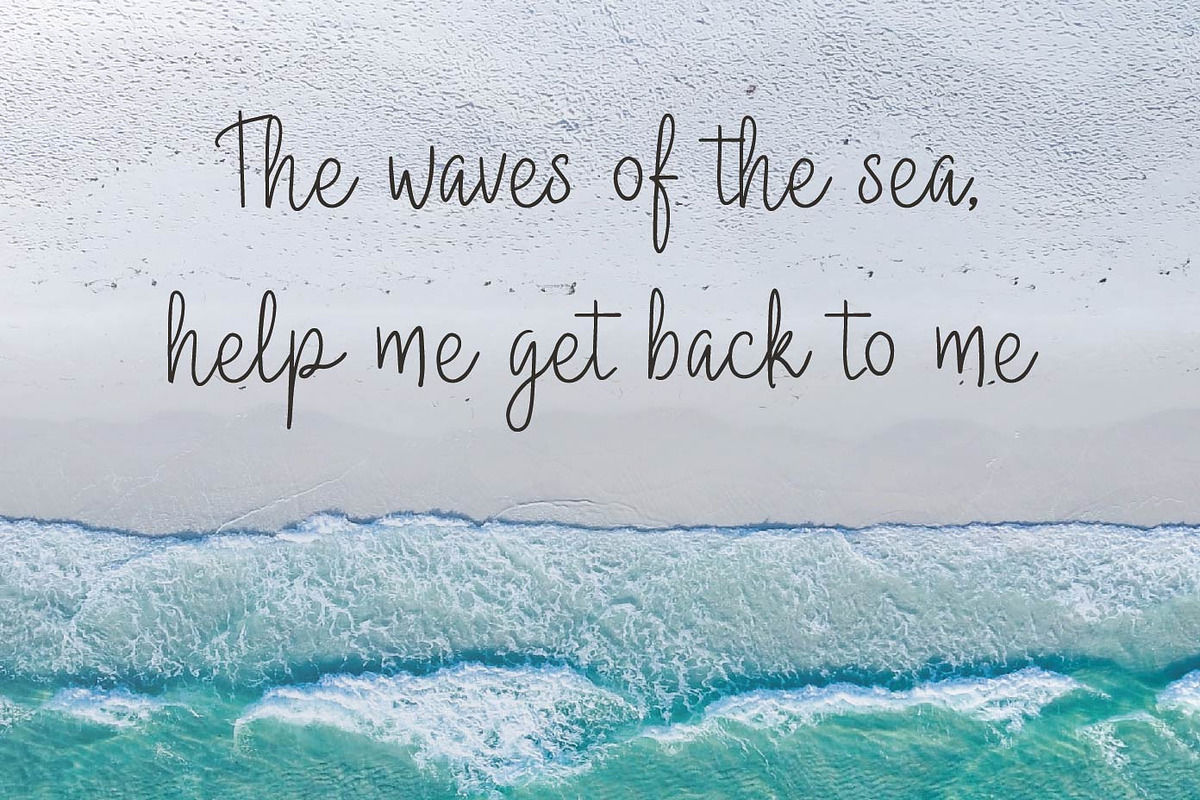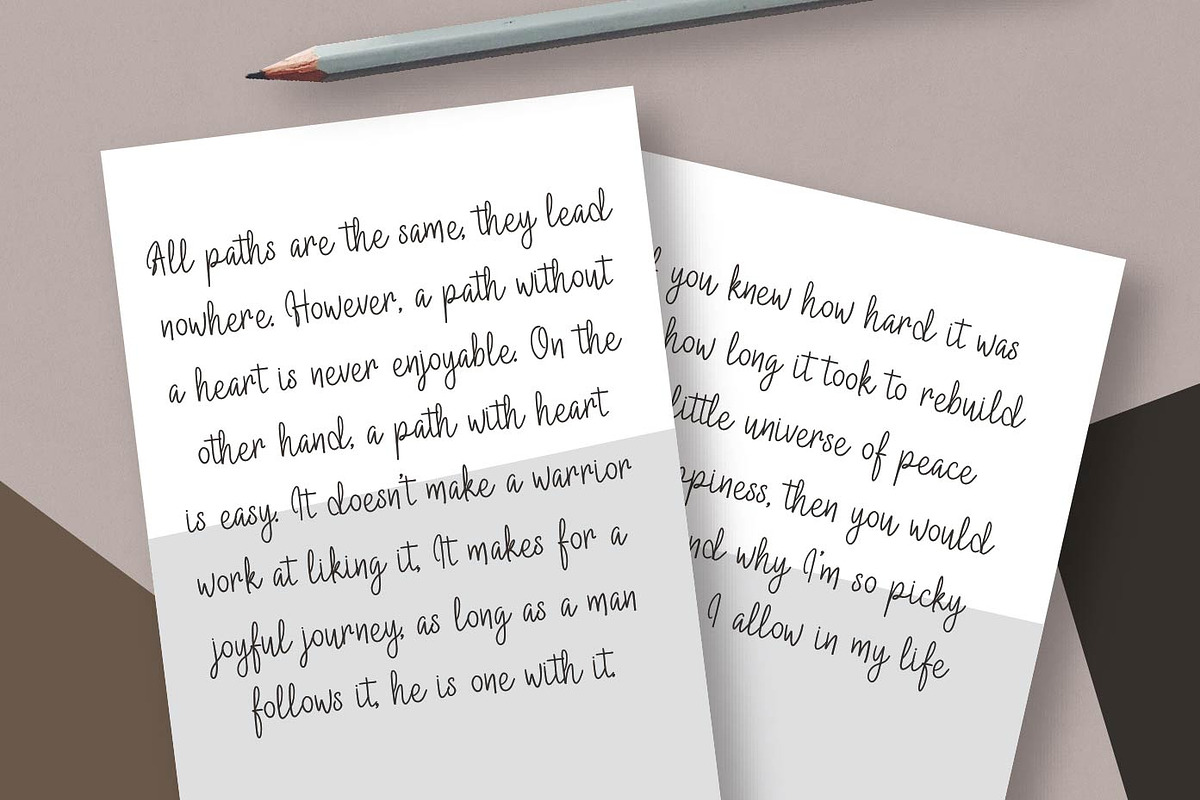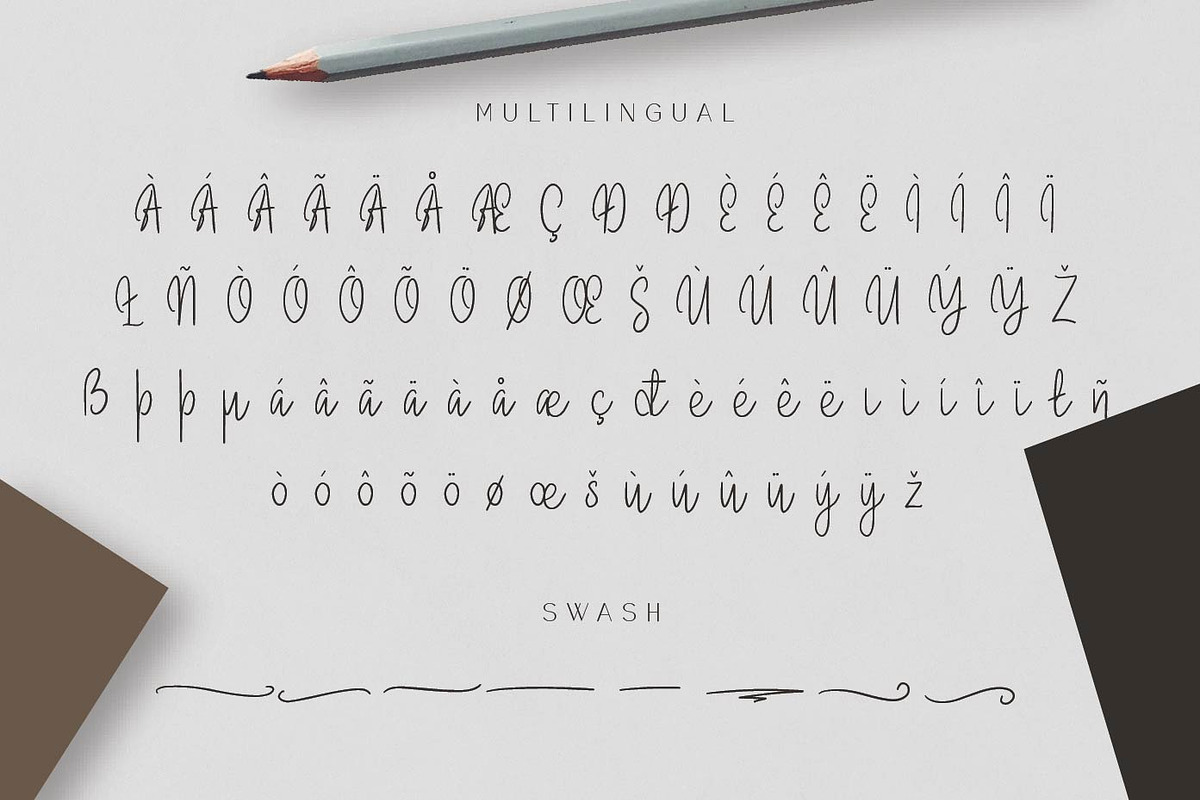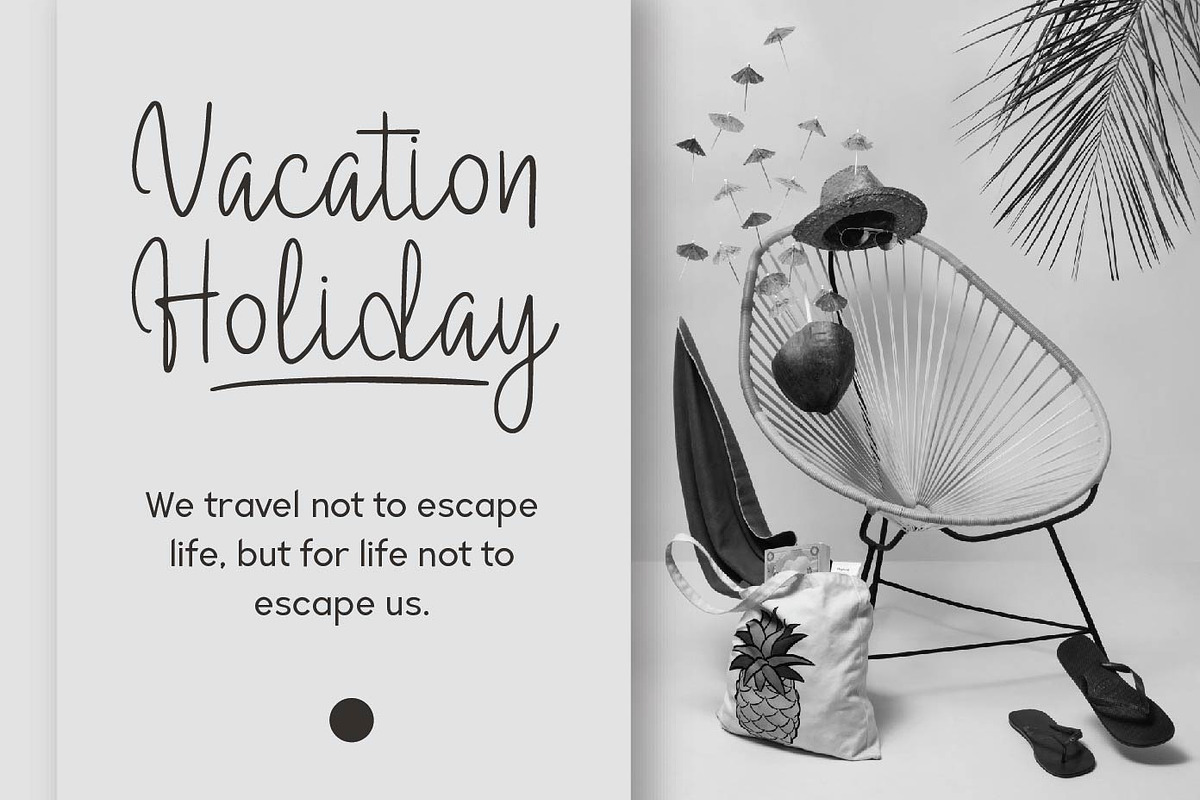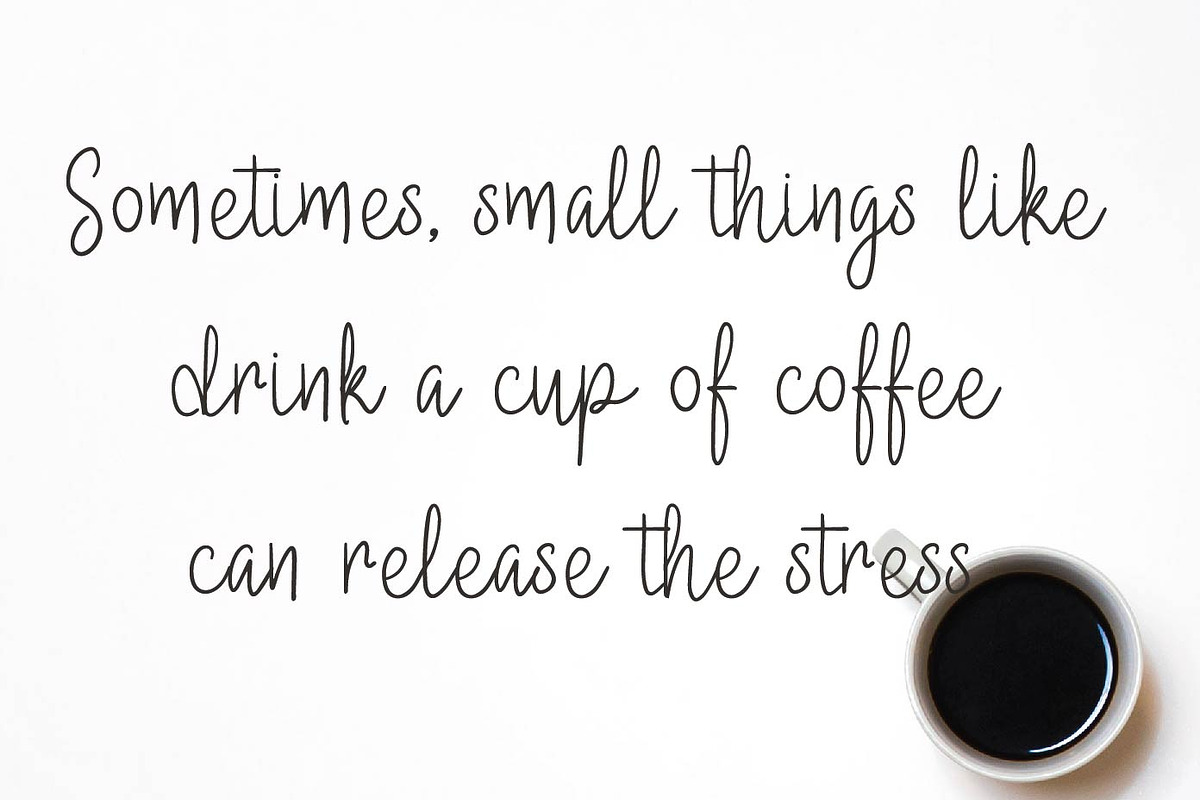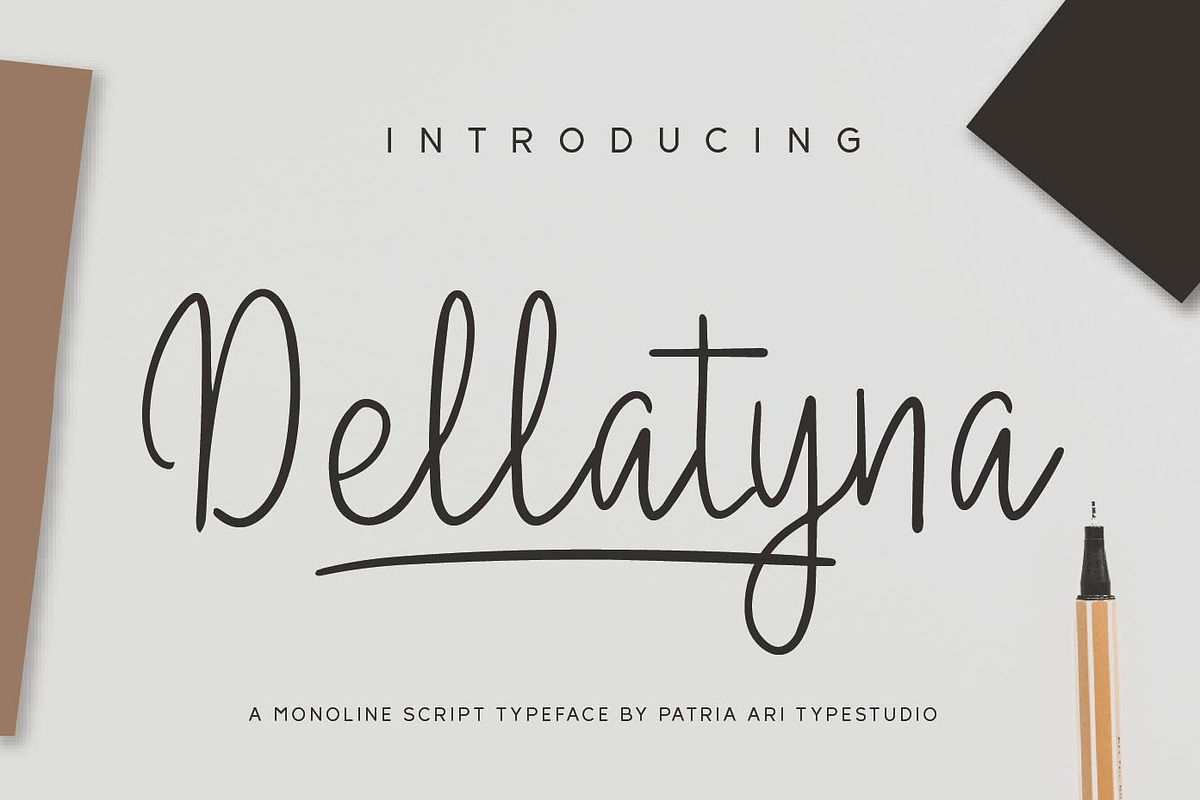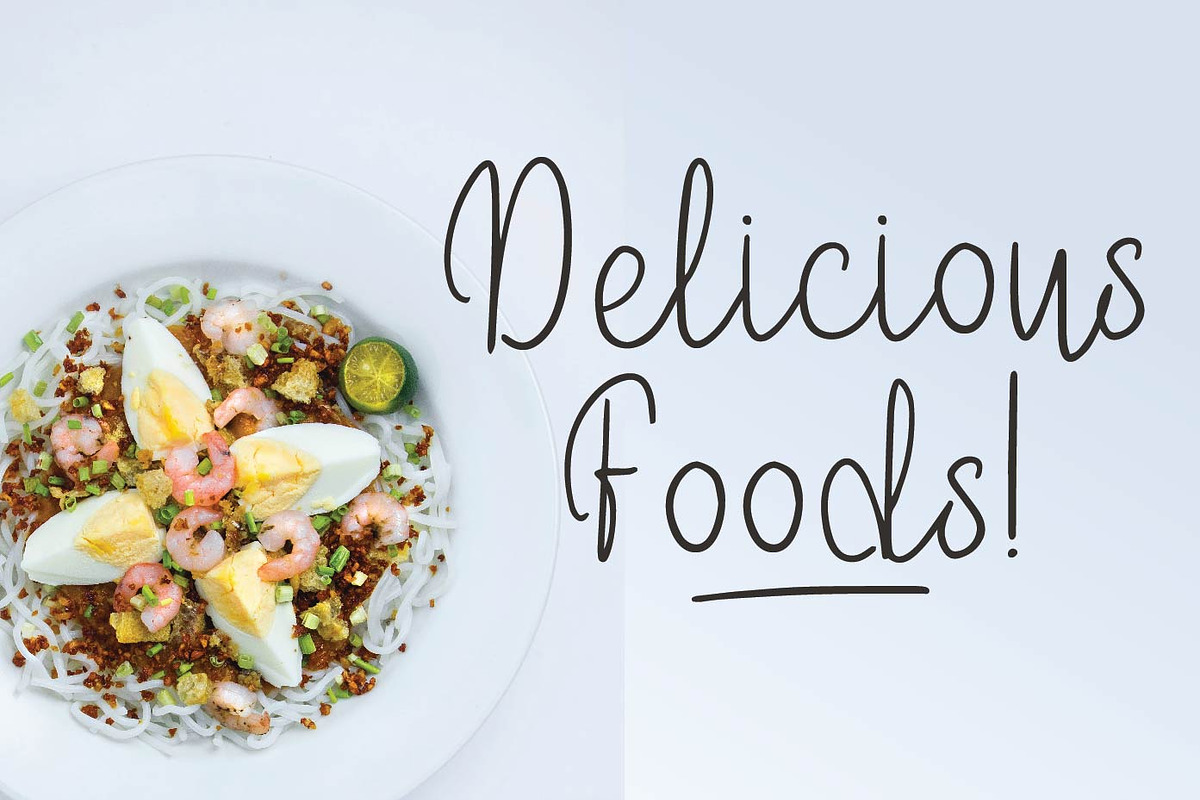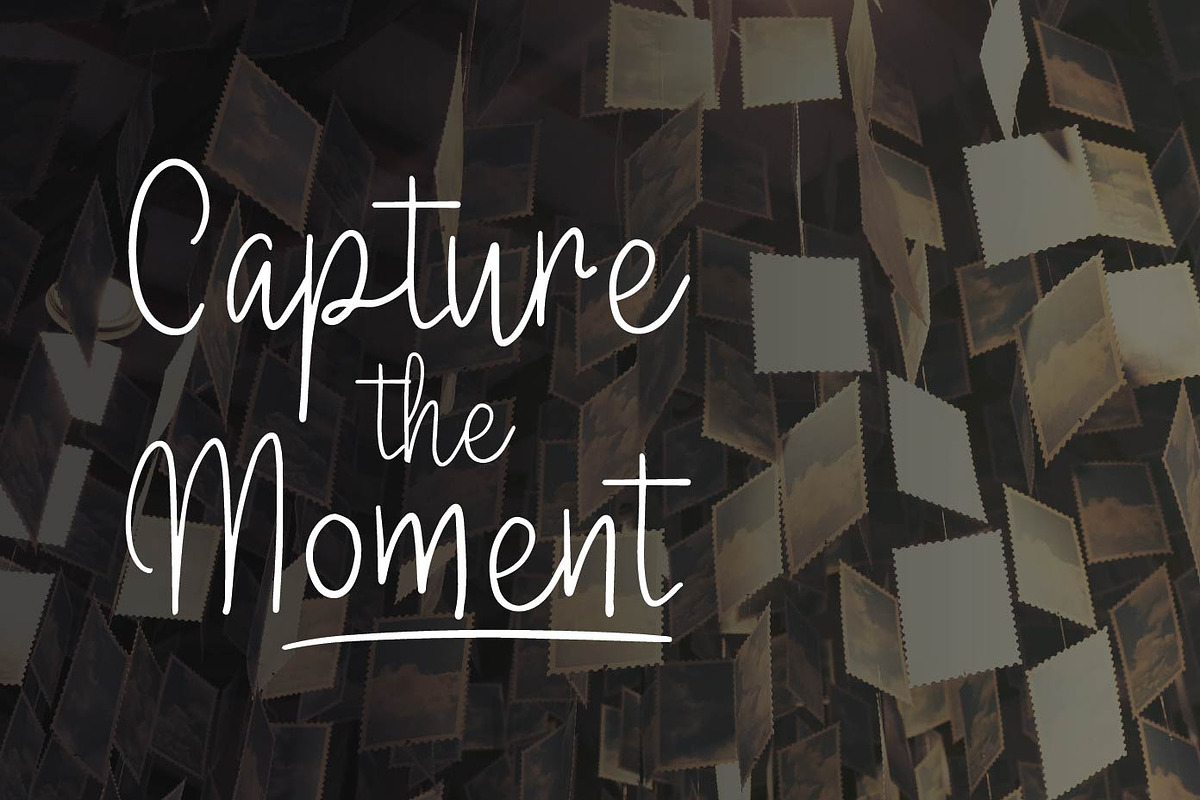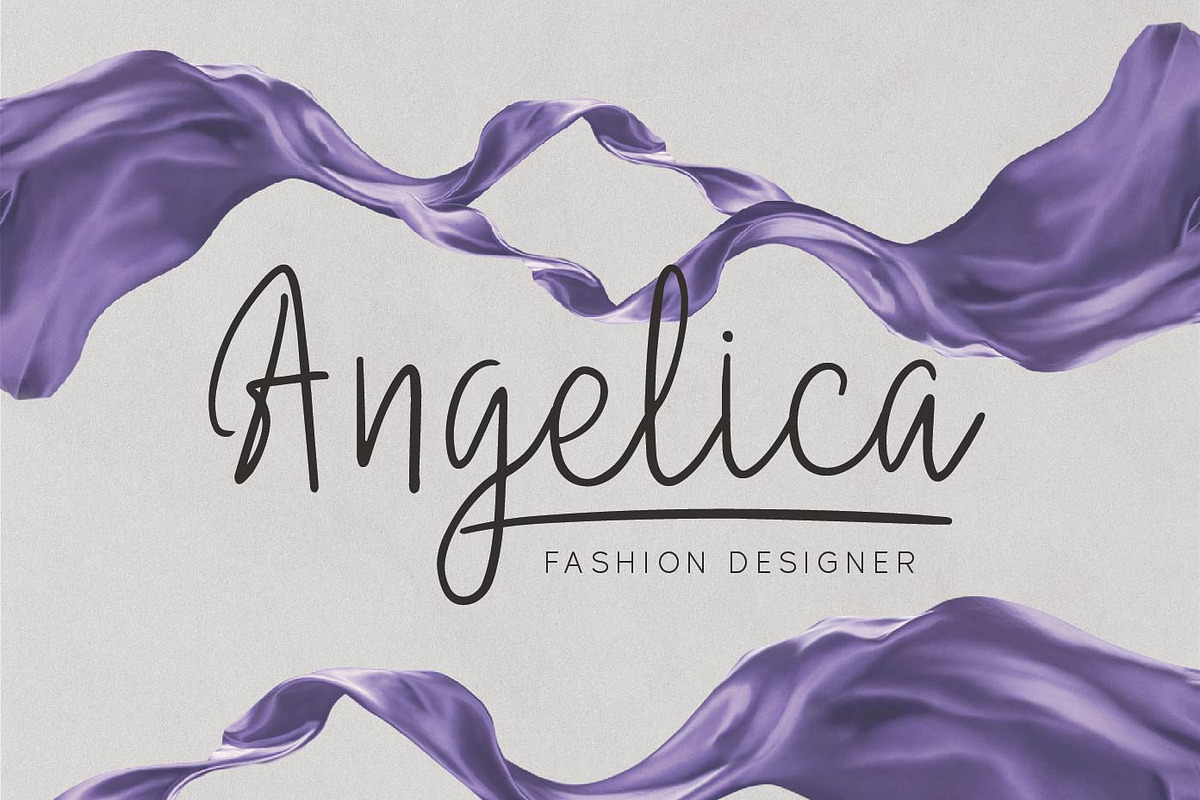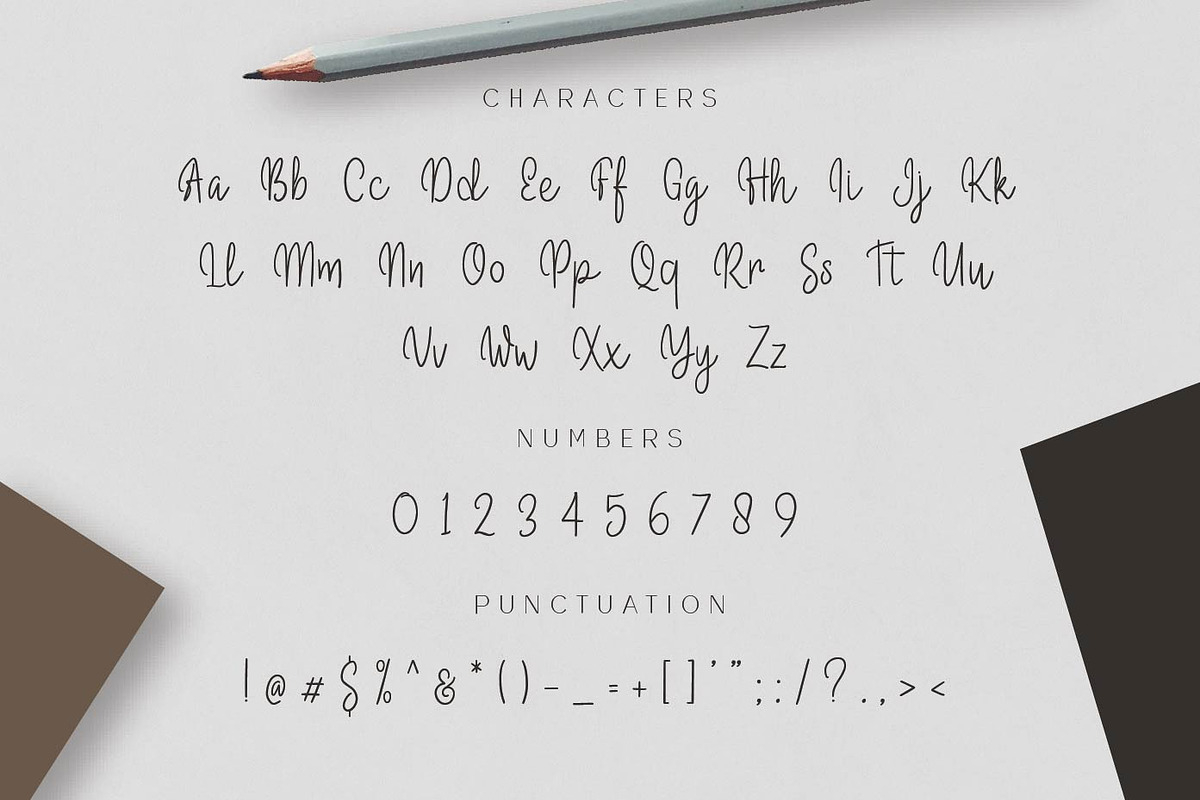
Dellatyna
Dellatyna is a monoline script typeface with multilingual accent and also swashes. This font can use to support your project to make design more beautiful. Dellatyna suitable for book cover, merchandise, poster, title, quotes, and many more!
Fonts featured :
- Punctuation & symbols